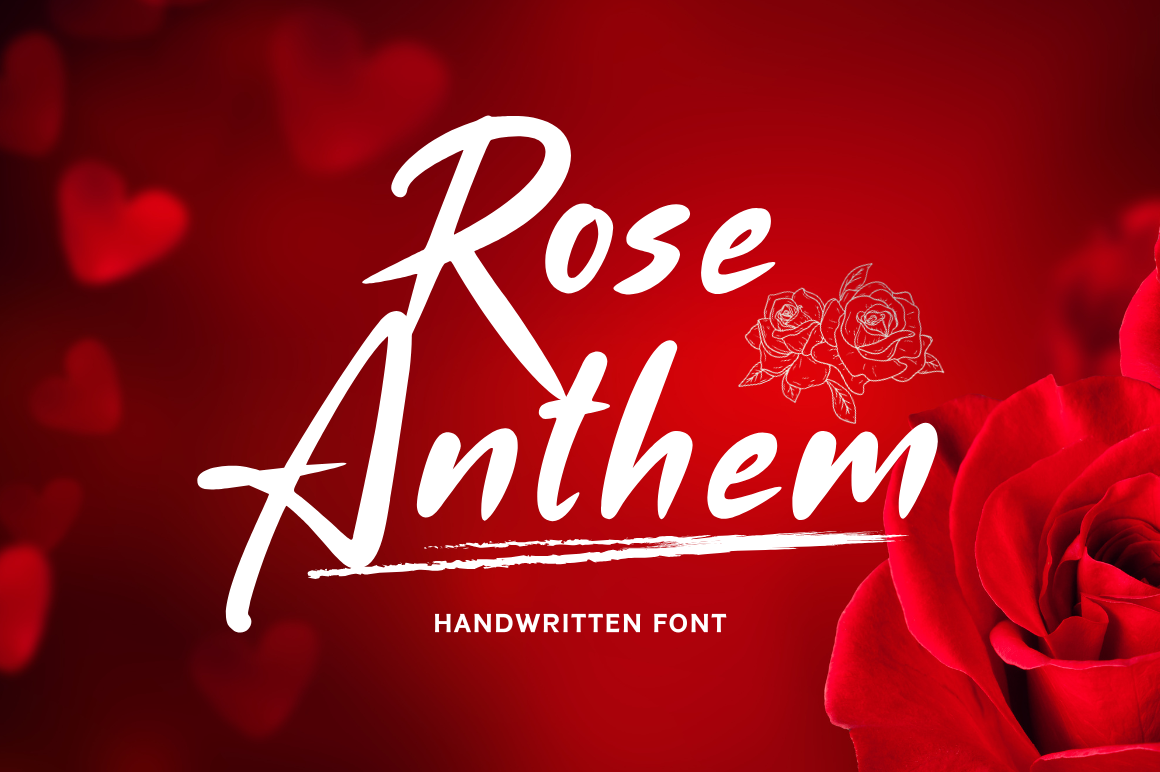
Rose Anthem - Handwritten Font
Rose Anthem is a charming handwritten font that captures the elegance of personal touch with a graceful, flowing style. Its soft curves and natural strokes make it perfect for anything that needs a warm, heartfelt feel.